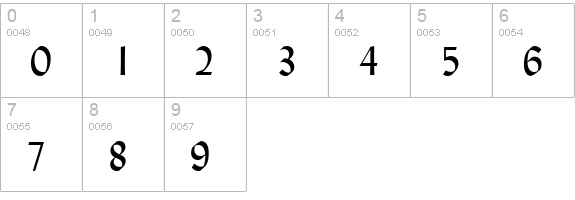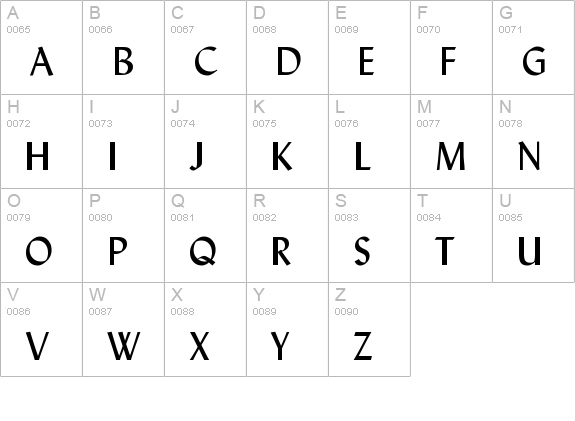
Lynda Normal is the standard, neutral variant in the Lynda typeface family \xE2\x80\x94 well suited to general body text, paragraphs, and standard typographic work.
Lynda Normal font is a versatile and stylish typeface that exudes a sense of modernity and sophistication. With its clean lines and balanced proportions, this font is perfect for a wide range of design projects, from branding to editorial design. The Lynda Normal font is available for free download at FontsMarket.com, making it easily accessible to designers and creators looking to add a touch of elegance to their creations without breaking the bank. Whether you're working on a logo, website design, or printed materials, this font is sure to elevate your project and leave a lasting impression on your audience. Don't miss out on the opportunity to enhance your designs with the timeless beauty of Lynda Normal font, now available for free at FontsMarket.com. Download it today and unleash your creativity with this stunning typeface.